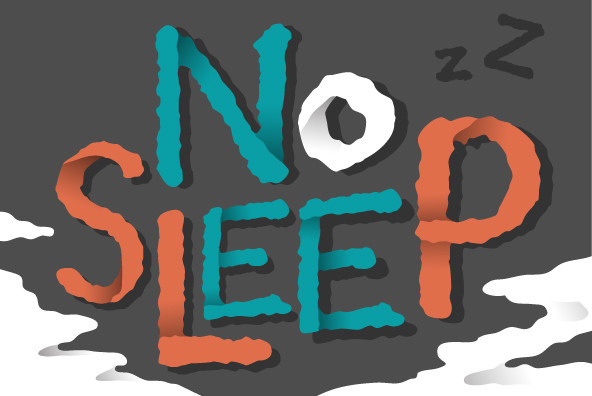
Joe Family Font
Joe Family Font is perfect for friendly branding projects, casual restaurant signage, community-focused marketing, small business logos, family-oriented packaging, neighborhood event materials, local service advertising, and approachable web typography. This warm typeface works beautifully in both digital applications and print media where personal connection and down-to-earth authenticity are essential design elements.
What makes Joe Family Font so exciting is its perfect capture of everyday American friendliness with approachable letterforms that instantly communicate trustworthiness and genuine human connection. The font features comfortable, unpretentious characters with natural proportions, welcoming spacing, and relatable personality that evokes the warmth of neighborhood businesses and family-owned establishments. Its honest character and accessible design make it ideal for brands seeking to establish personal relationships with their community while maintaining professional quality and excellent readability across diverse applications.
The Joe Family Font family includes multiple weight variations from light to bold, along with italic styles and casual alternates. Each style maintains the typeface's friendly character while offering comprehensive character sets including approachable numerals, conversational punctuation marks, and special symbols designed to enhance community-focused communications and local business branding efforts.
This exceptional typeface represents the perfect marriage of personal authenticity and professional functionality for community-oriented businesses. Whether you're developing local service identities, creating neighborhood marketing materials, or designing family-friendly promotional content, Joe Family Font Free Download provides the genuine warmth and versatility needed to build lasting customer relationships. The font's family-oriented appeal makes it particularly effective for local restaurants, family businesses, community organizations, and service providers emphasizing personal care and neighborhood values.
The carefully balanced friendly proportions and optimized readability in Joe Family Font ensure both personal connection and clear communication across all applications. Its welcoming presence makes it perfect for storefront signs, friendly advertisements, and community materials where its full approachable character can create emotional bonds with customers seeking authentic, personal service and genuine neighborhood hospitality.